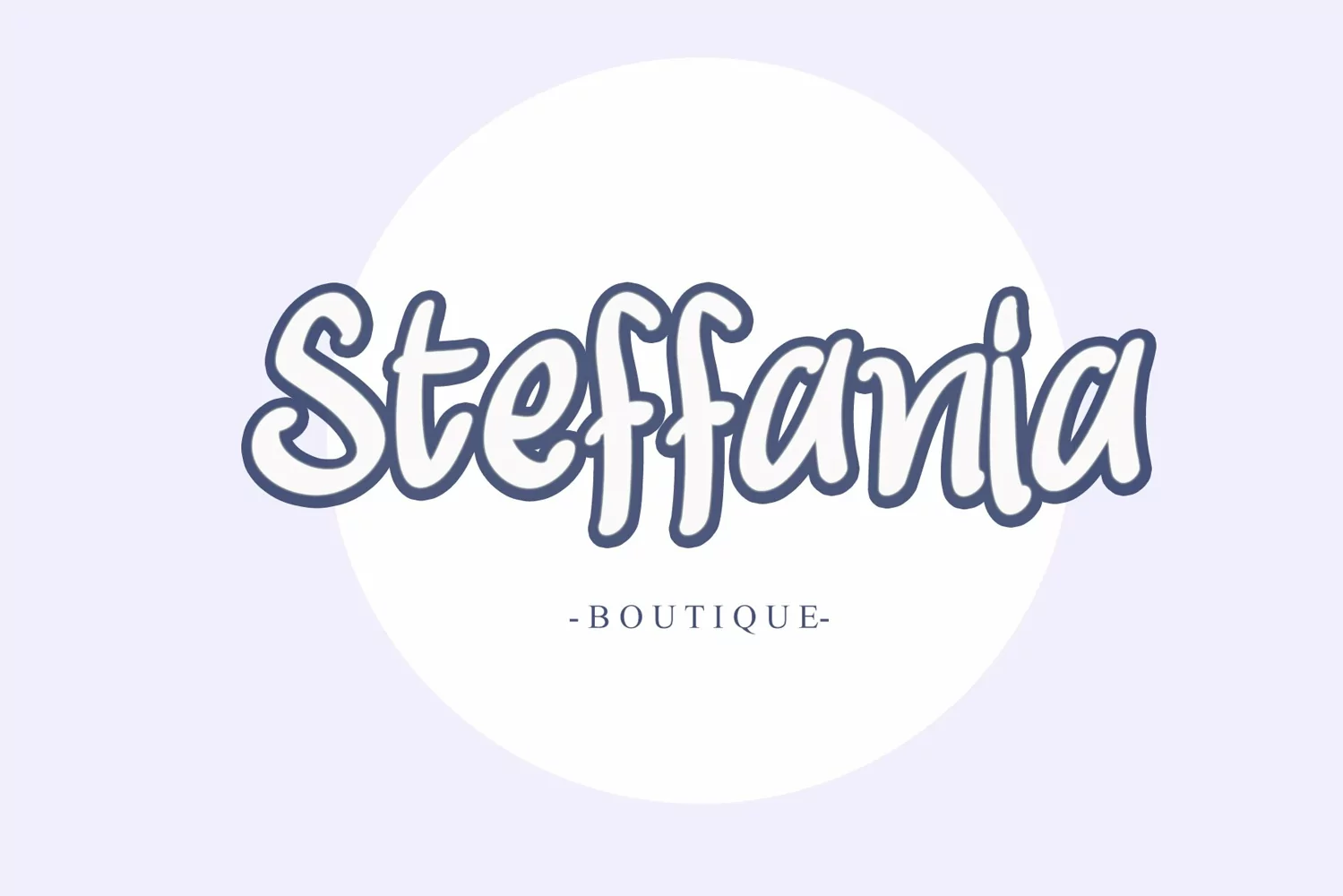
Beautiful Handwritten
My first font is a cool, trendy and brushed display font. Whether you’re using it for crafts, digital design, presentations, or making greeting cards, this font has the potential to become your favorite go-to font, no matter the occasion!